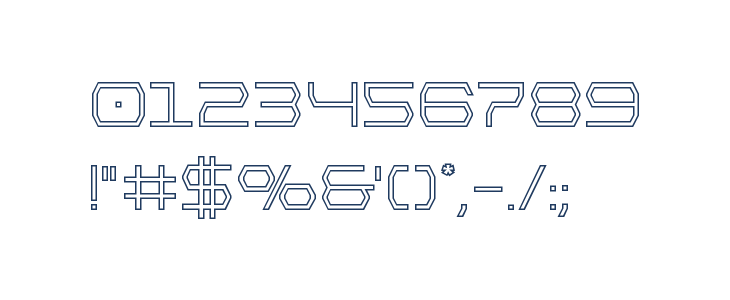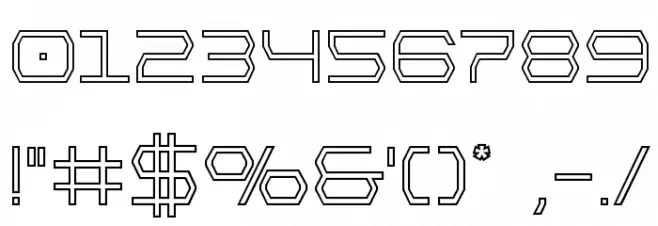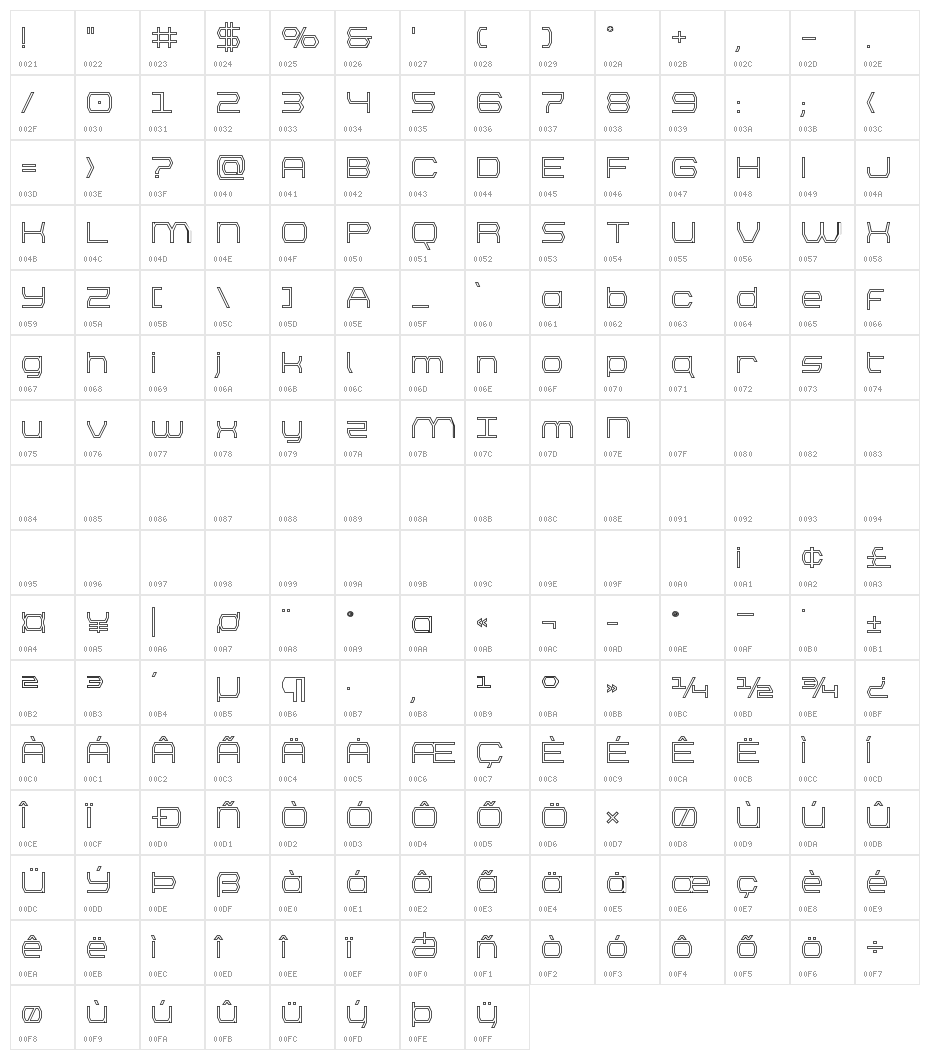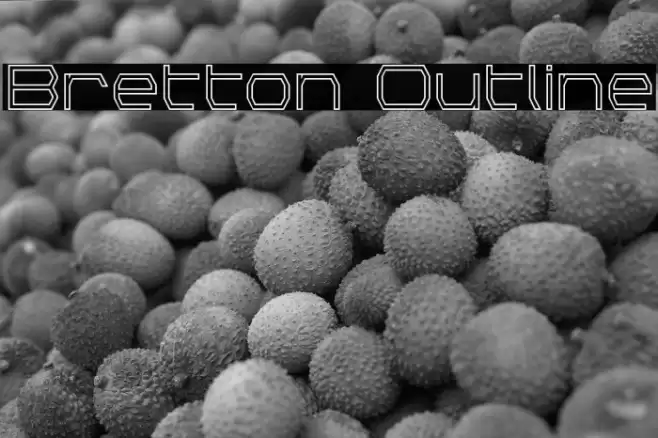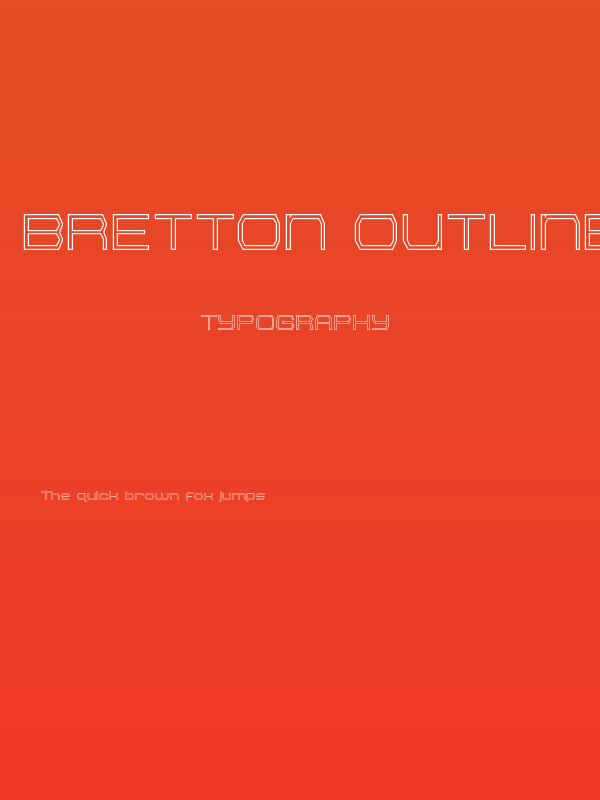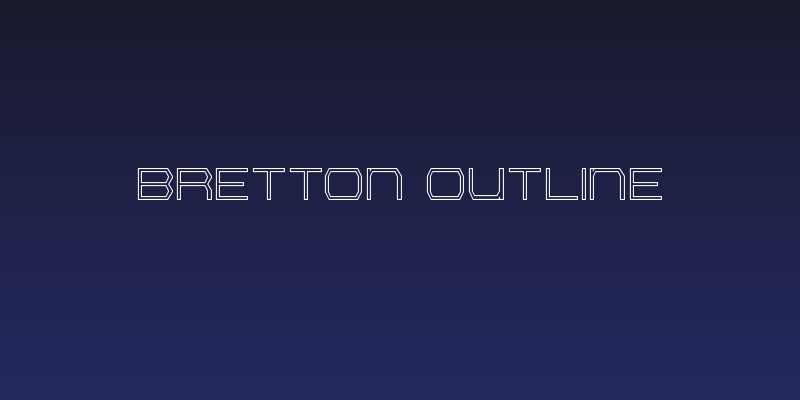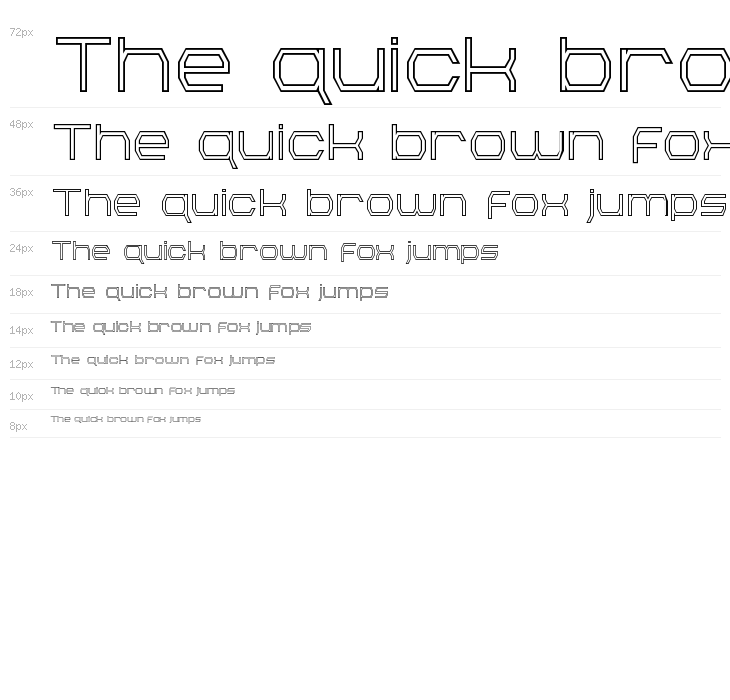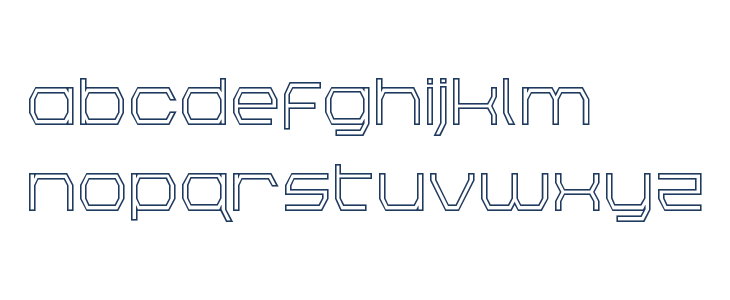
Bretton Outline Font
Bretton Outline Description
This font features a distinct outline style with geometric precision, characterized by its angular and structured letterforms. The uppercase and lowercase letters maintain a consistent height, giving it a uniform appearance. The numerals and special characters follow the same design principles, ensuring a cohesive look across all characters. The font's outline nature provides a modern and futuristic aesthetic, making it suitable for digital and print media where a unique and eye-catching typeface is desired. Its clean lines and open spaces within each character enhance readability while maintaining a decorative appeal.
| Proposed Projects | Ideal for digital interfaces, tech-related branding, futuristic posters, and creative headlines. |